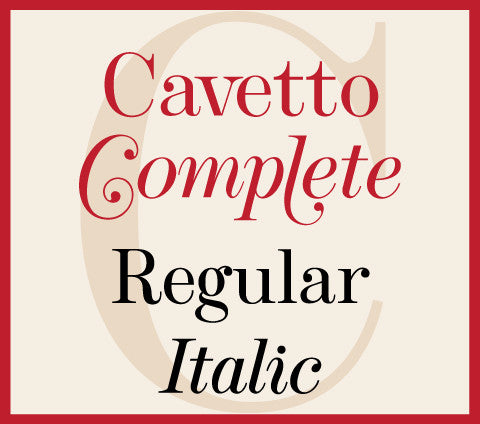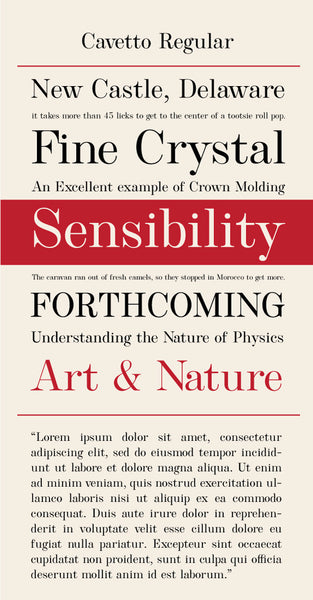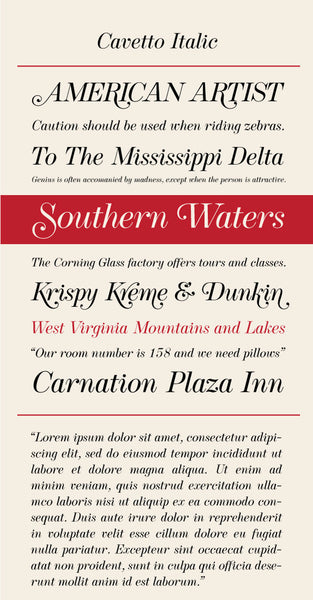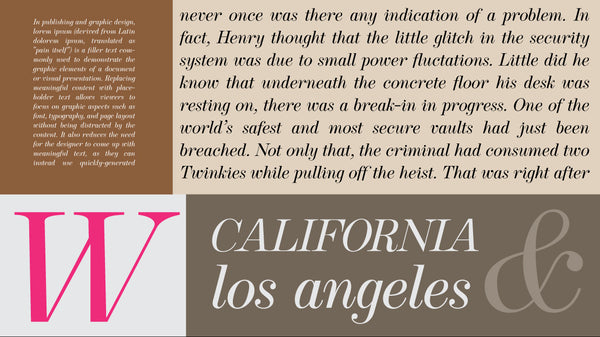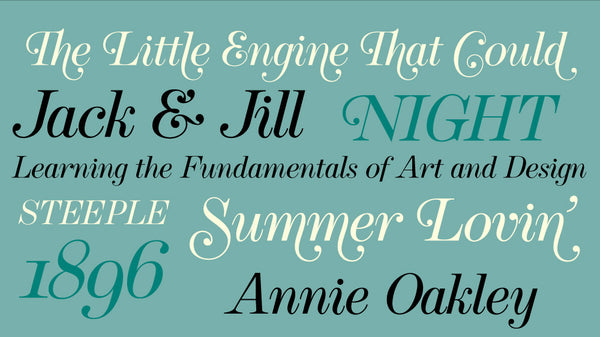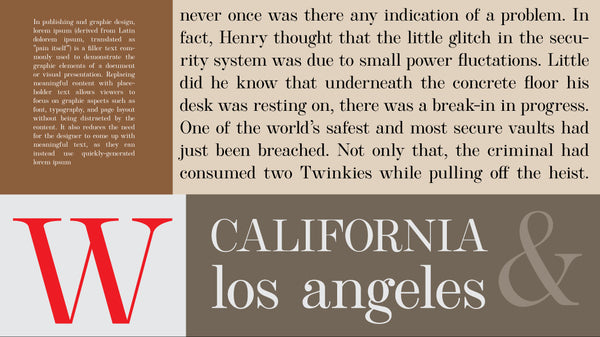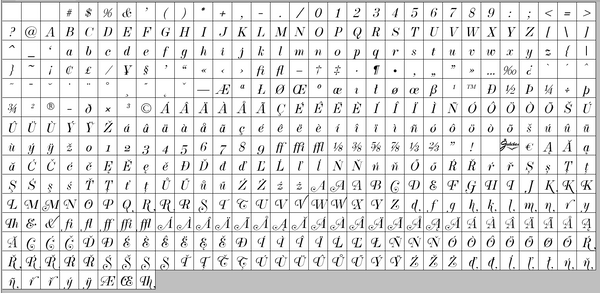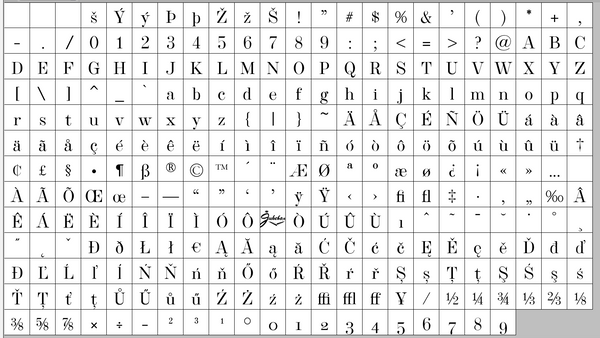
Cavetto Complete
Cavetto is a serif font family I designed to add a classic text face to the Jukebox library, consisting of Cavetto Regular and Cavetto Italic. The Cavetto family is designed in the tradition of Bodoni style (a.k.a. "Modern") fonts, with strong contrast between thick and thin and vertical axis stress. This font is a great choice for a more refined and elegant appearance where only the traditional will do.